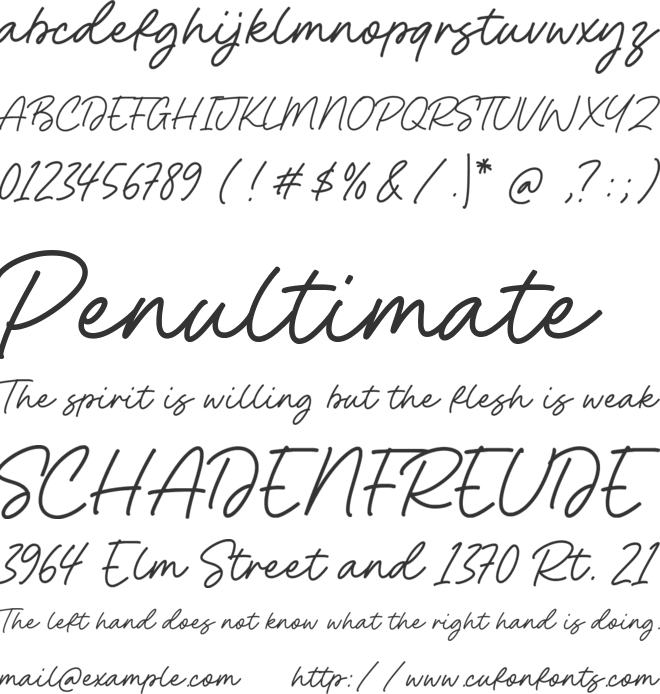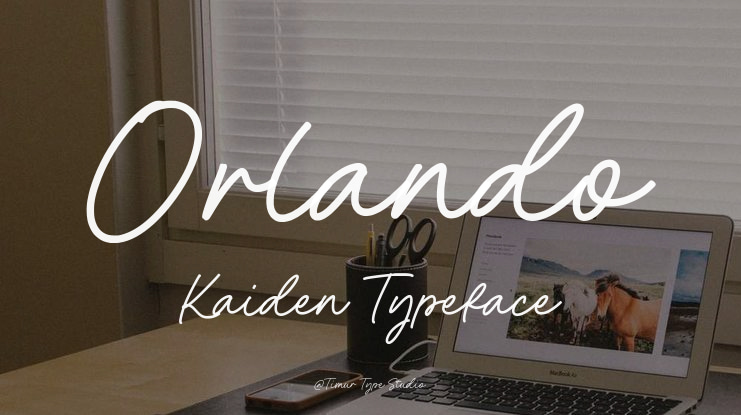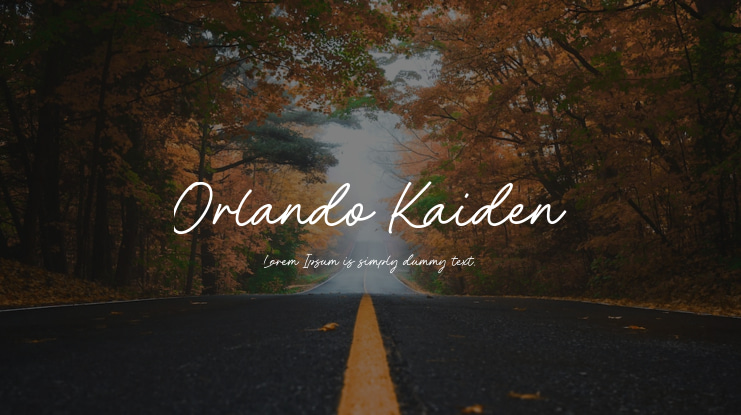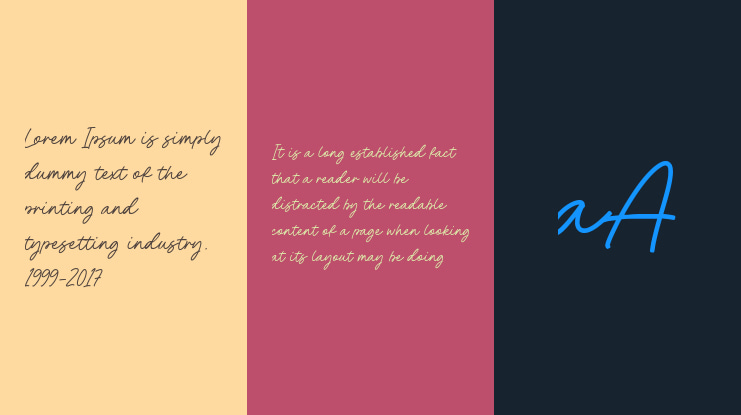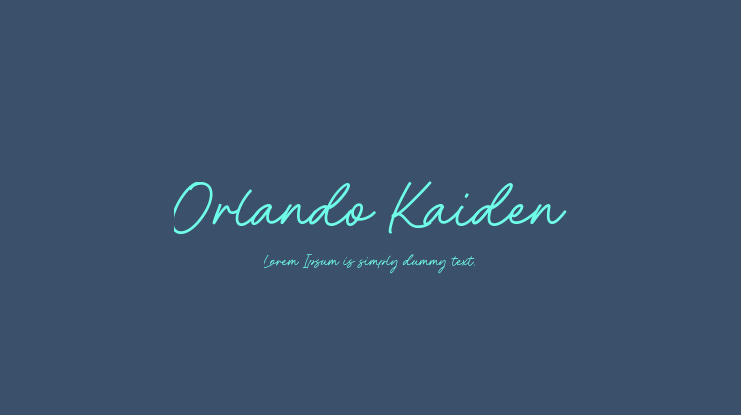
**Orlando Kaiden Handwritten Script Font**
Orlando Kaiden is a stylish handwritten script font that seamlessly merges modern elegance with a natural flow. Featuring smooth curves and refined strokes, it is perfect for logos, invitations, and branding, exuding charm and sophistication in every letter.
Orlando Kaiden Font also supports multilingual use.
**Features of Orlando Kaiden Font:**
- Full set of standard alphabet and punctuation.